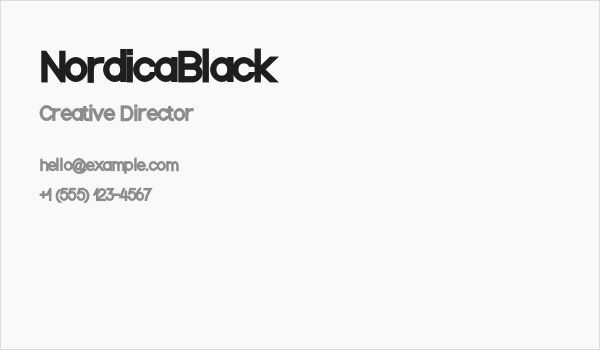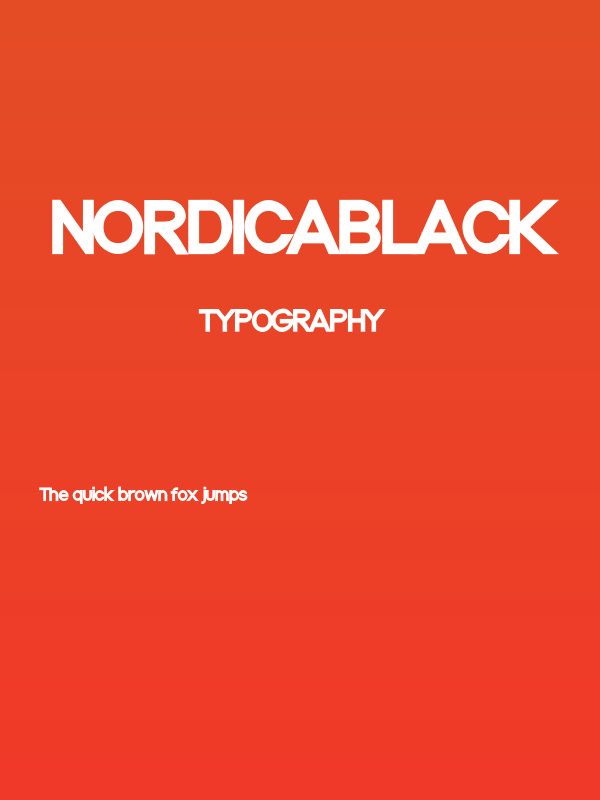
NordicaBlack Font
NordicaBlack Description
This font features a bold and modern sans-serif style with a strong geometric structure. The characters are uniform in width, giving it a clean and cohesive appearance. The uppercase and lowercase letters maintain a consistent height, enhancing readability. The numerals are equally bold, matching the overall weight of the alphabet. Special characters are designed with the same boldness, ensuring they stand out. The font's simplicity and clarity make it versatile for various design applications.
Proposed ProjectsIdeal for branding, headlines, posters, and digital media where a strong, modern presence is needed.